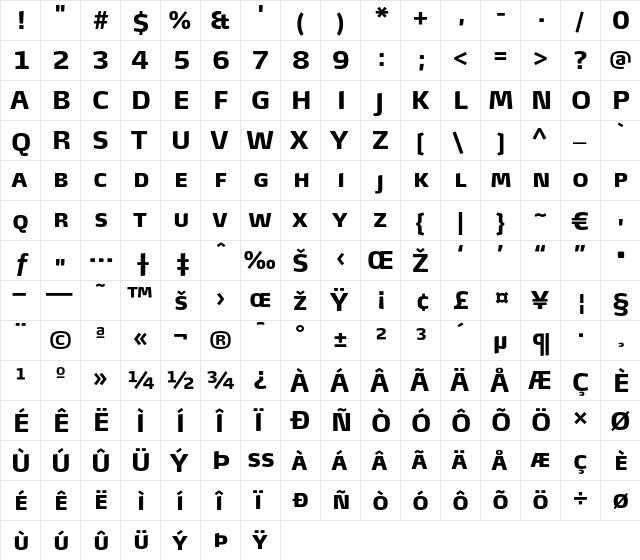
MaxTF-ExtraBoldSC Regular
Design Context for MaxTF-ExtraBoldSC Typeface
MaxTF-ExtraBoldSC offers clean, dependable letterforms without strong stylistic allegiance, making it a practical choice for designers who need flexibility. Its bold stroke weight gives it real presence on the page.
Pro Tip: Pair MaxTF-ExtraBoldSC with a font of contrasting weight or personality to build a more expressive typographic hierarchy.